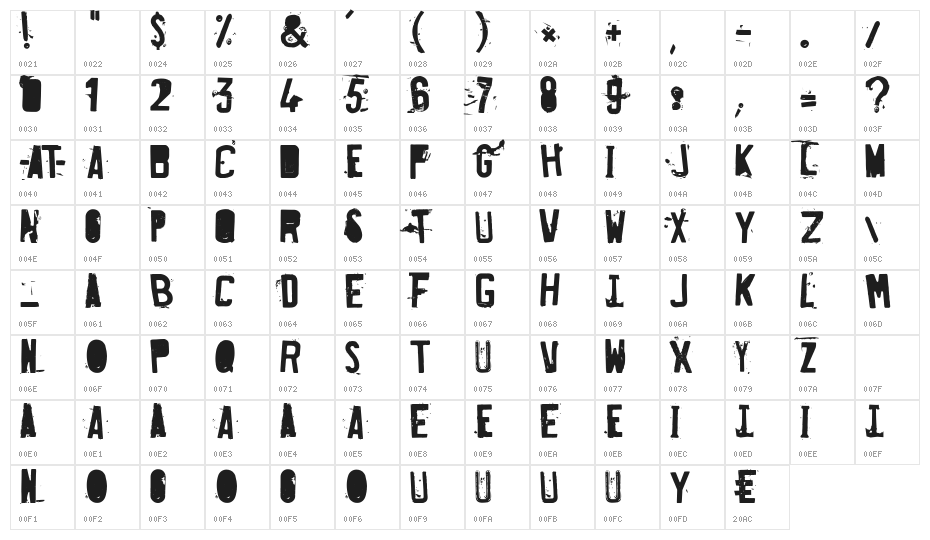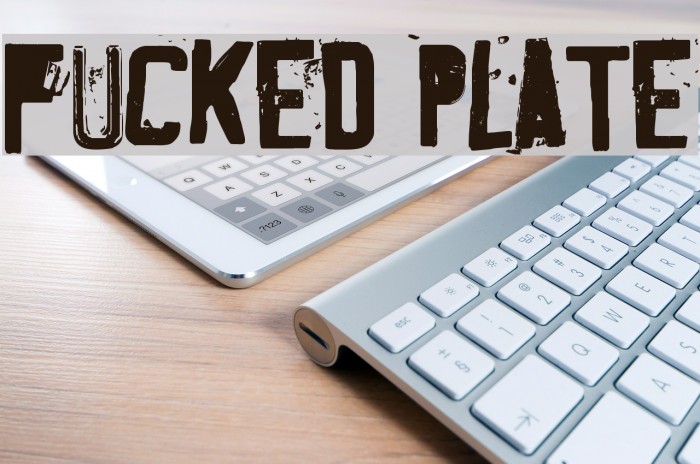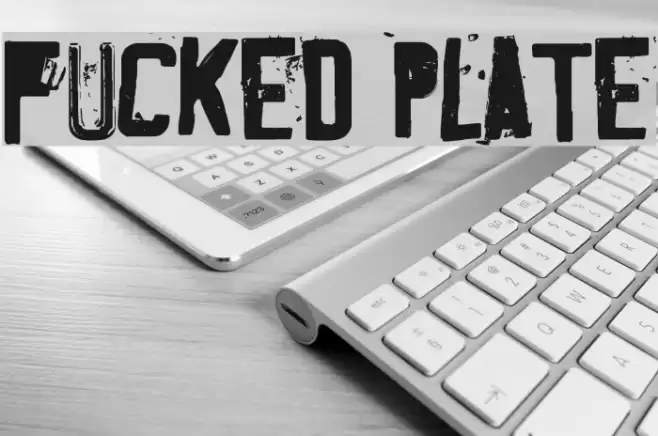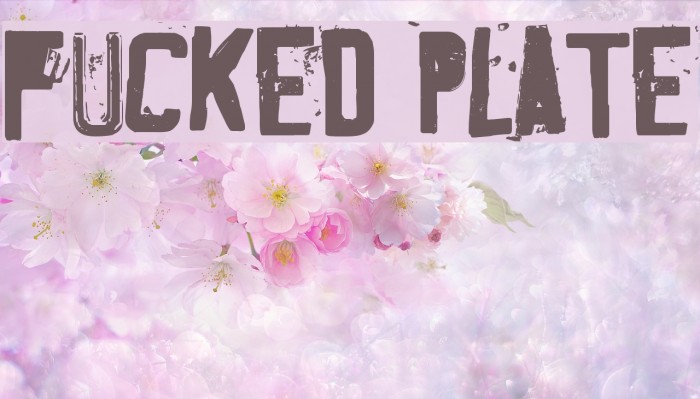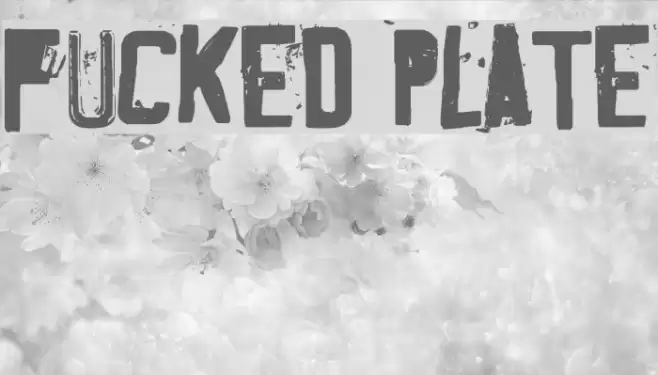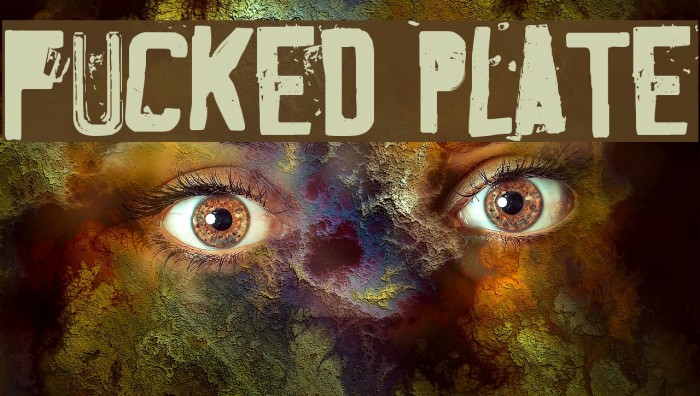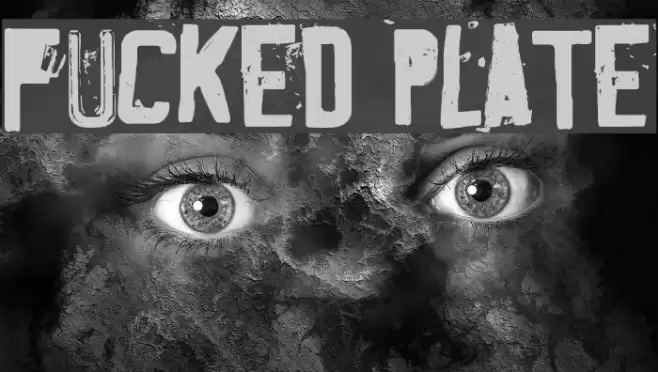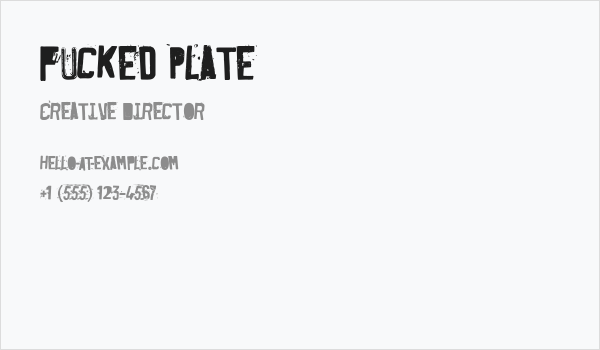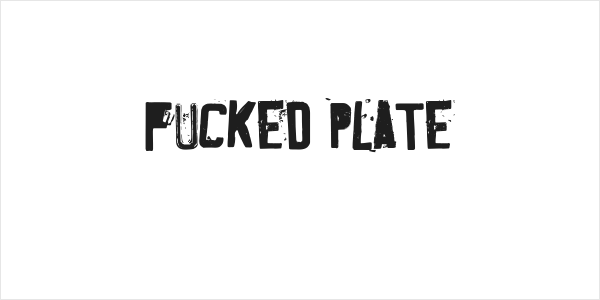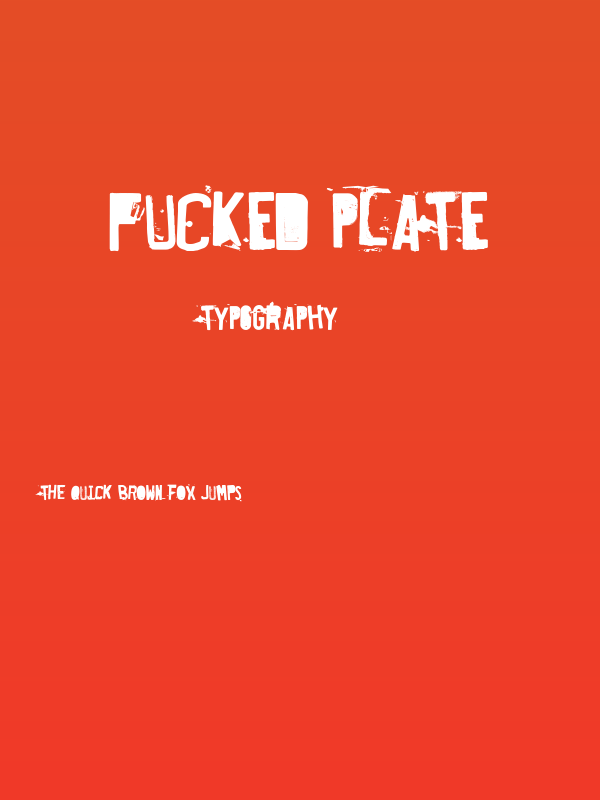
Fucked Plate Font
Fucked Plate Description
This font exhibits a distressed, grunge style with a bold and impactful presence. The characters are irregular and appear worn, giving them a rugged and edgy look. The uppercase and lowercase letters maintain a consistent height, while the numbers and special characters follow the same distressed aesthetic. The font's rough texture and uneven edges contribute to its unique, rebellious character, making it stand out in any design. Its boldness and texture make it suitable for projects that require a strong visual impact.
| Overall Style | Grunge, Edgy |
| Proposed Projects | Ideal for album covers, posters, streetwear branding, and edgy graphic designs. |